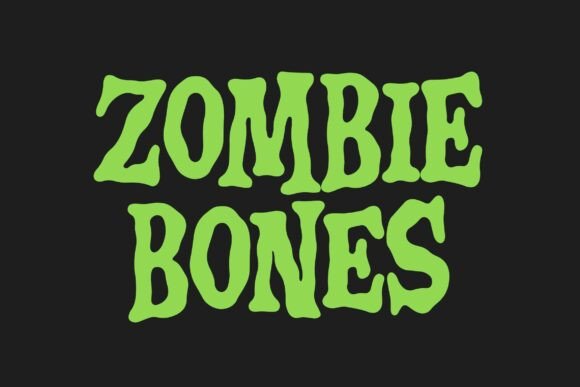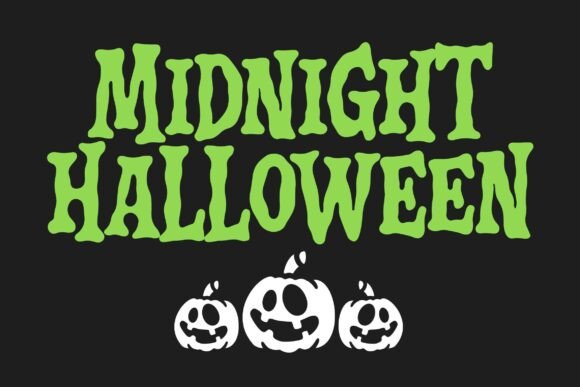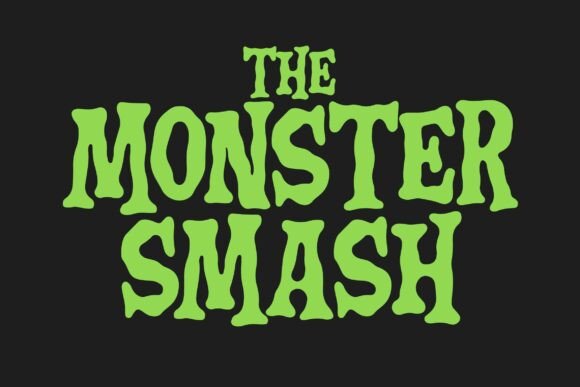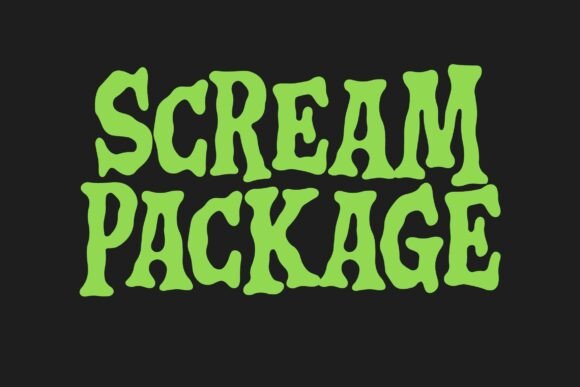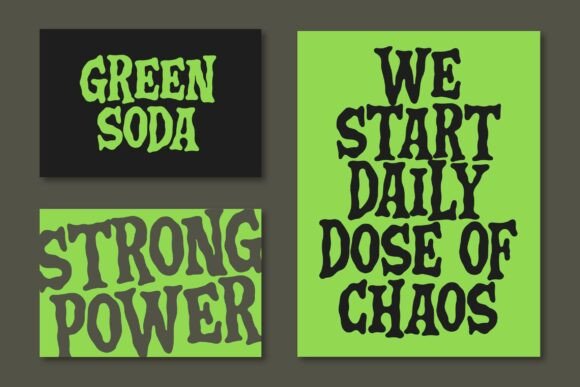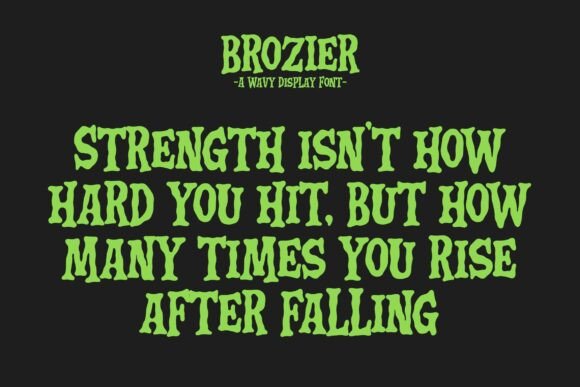
Brozier Font: Unleash Your Creativity with a Groovy yet Creepy Display Font
Are you a designer or crafter looking for a font that adds a touch of personality to your work? Look no further than Brozier Font, a wavy display font that blends groovy vibes with a touch of creepy fun. In this article, we’ll dive into the unique features of Brozier Font and explore how it can elevate your designs to the next level.
The Unique Charm of Brozier Font
Brozier Font is not just any ordinary font. Its unique liquid shapes and retro-horror mood make it a standout in the world of typography. Each letter is perfectly imperfect, playful, and full of attitude, making it perfect for creators who love to stand out from the crowd. Whether you’re working on a Halloween poster, band logo, album cover, streetwear design, or bold title art, Brozier Font adds instant energy and character to your work.
Design Features of Brozier Font
Brozier Font boasts a range of design features that make it a versatile and fun font to work with. Some of its key features include:
- Wavy and Liquid Shapes: Brozier Font’s wavy and liquid shapes give it a unique, hand-drawn feel that’s perfect for adding a touch of personality to your designs.
- Retro-Horror Mood: The font’s retro-horror mood is perfect for creating spooky and eye-catching designs for Halloween or other horror-themed projects.
- Perfectly Imperfect: Each letter in Brozier Font is perfectly imperfect, with a playful and quirky feel that’s sure to add character to your designs.
Use Cases for Brozier Font
Brozier Font is a versatile font that can be used in a variety of design projects. Here are some use cases to get you started:
- Halloween Posters: Brozier Font is perfect for creating spooky and eye-catching posters for Halloween or other horror-themed events.
- Band Logos: The font’s groovy and creepy vibe makes it perfect for band logos and music-related designs.
- Album Covers: Brozier Font can add a touch of personality and style to your album covers and music artwork.
- Streetwear Design: The font’s bold and playful feel makes it perfect for streetwear designs and fashion-related projects.
- Bold Title Art: Brozier Font can be used to create bold and eye-catching title art for movies, TV shows, and other video content.
Why Choose Brozier Font?
So why choose Brozier Font over other fonts? Here are just a few reasons:
- Unique and Standout Design: Brozier Font’s unique design makes it a standout in the world of typography.
- Perfect for Creators: The font is designed specifically for creators who love to stand out and add personality to their work.
- Instant Energy and Character: Brozier Font adds instant energy and character to your designs, making them more engaging and eye-catching.
In conclusion, Brozier Font is a unique and versatile display font that’s perfect for designers and crafters looking to add a touch of personality to their work. With its wavy and liquid shapes, retro-horror mood, and perfectly imperfect design, Brozier Font is sure to elevate your designs to the next level. Whether you’re working on a Halloween poster, band logo, album cover, streetwear design, or bold title art, Brozier Font is the perfect choice.